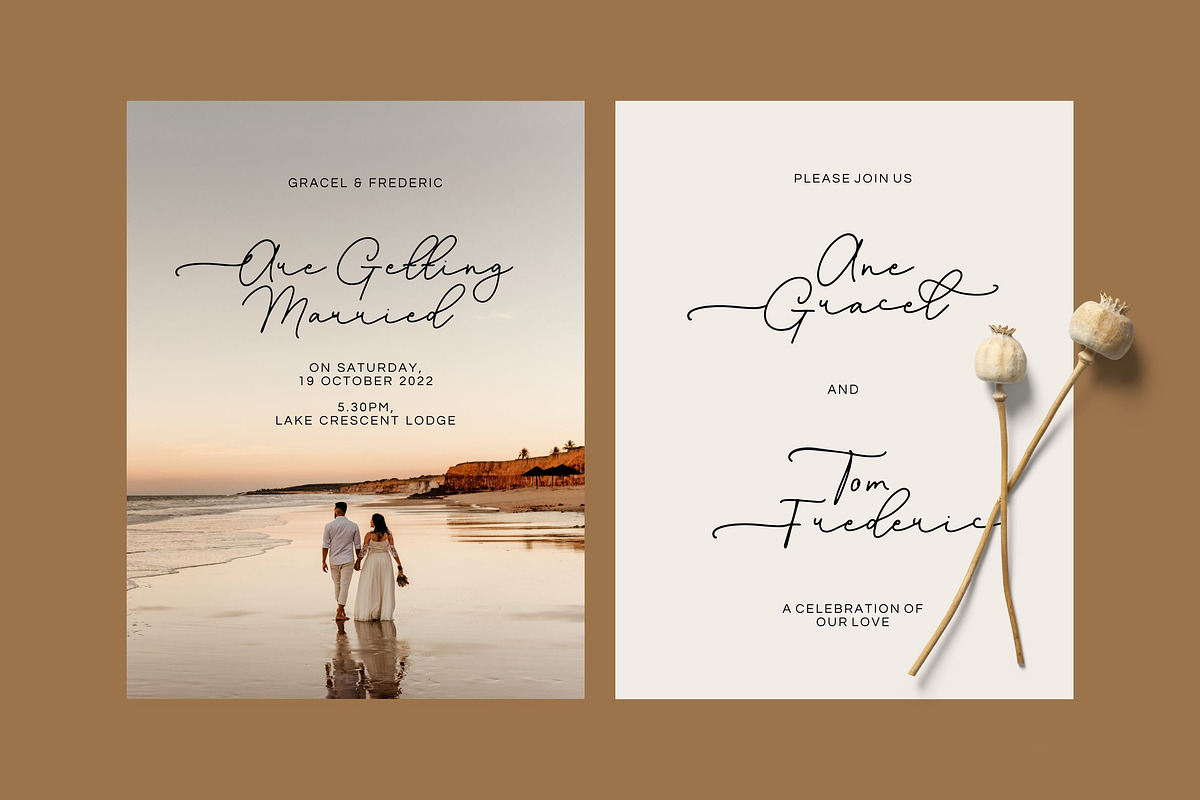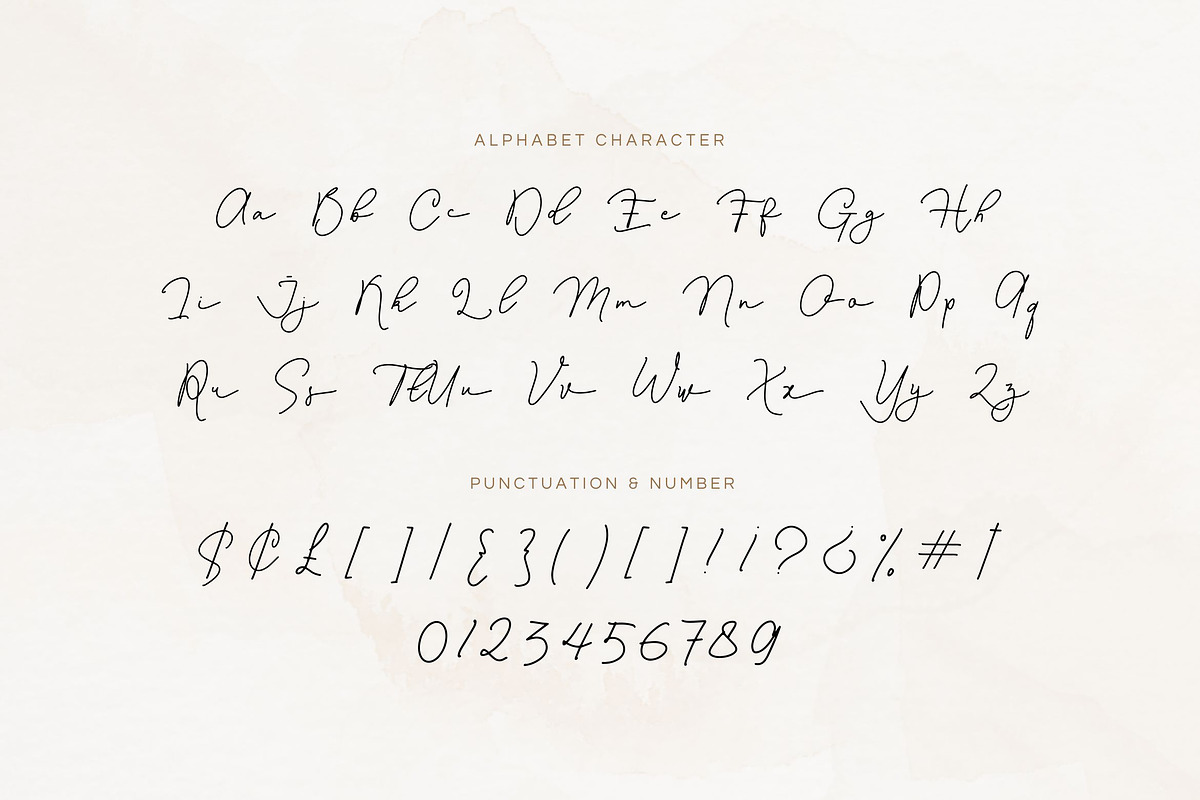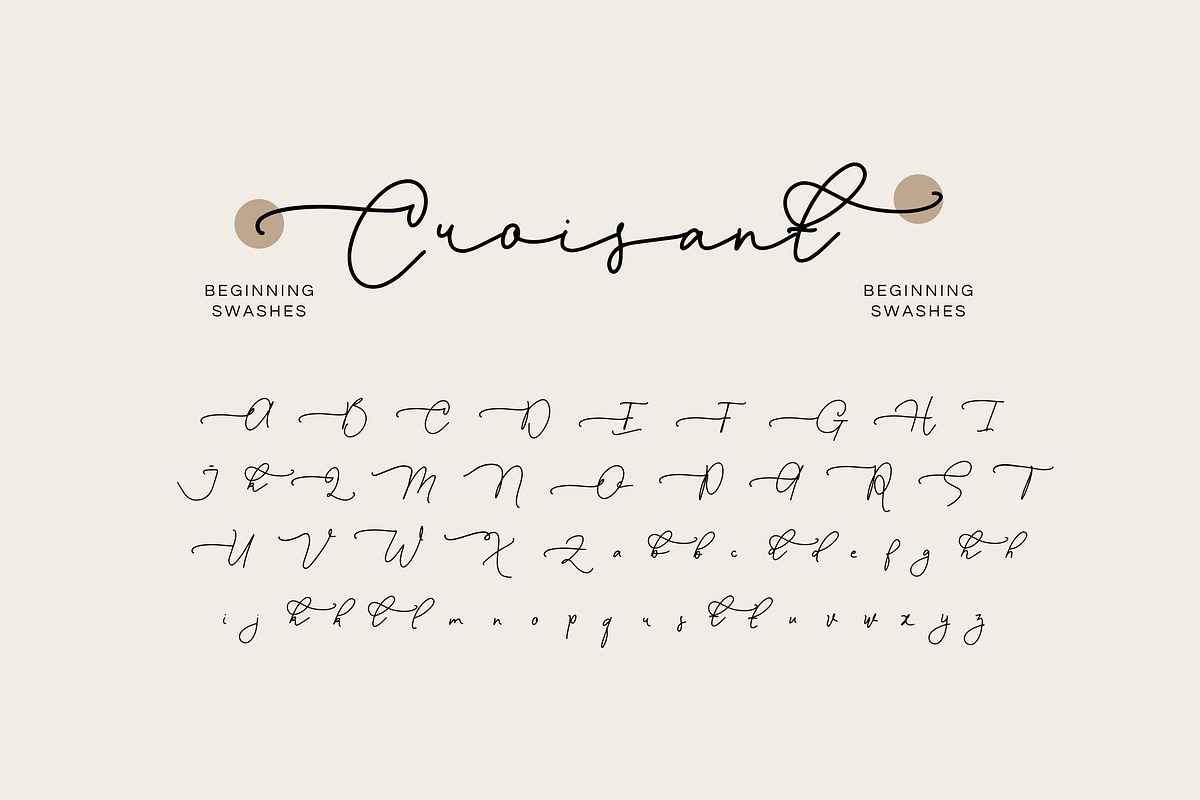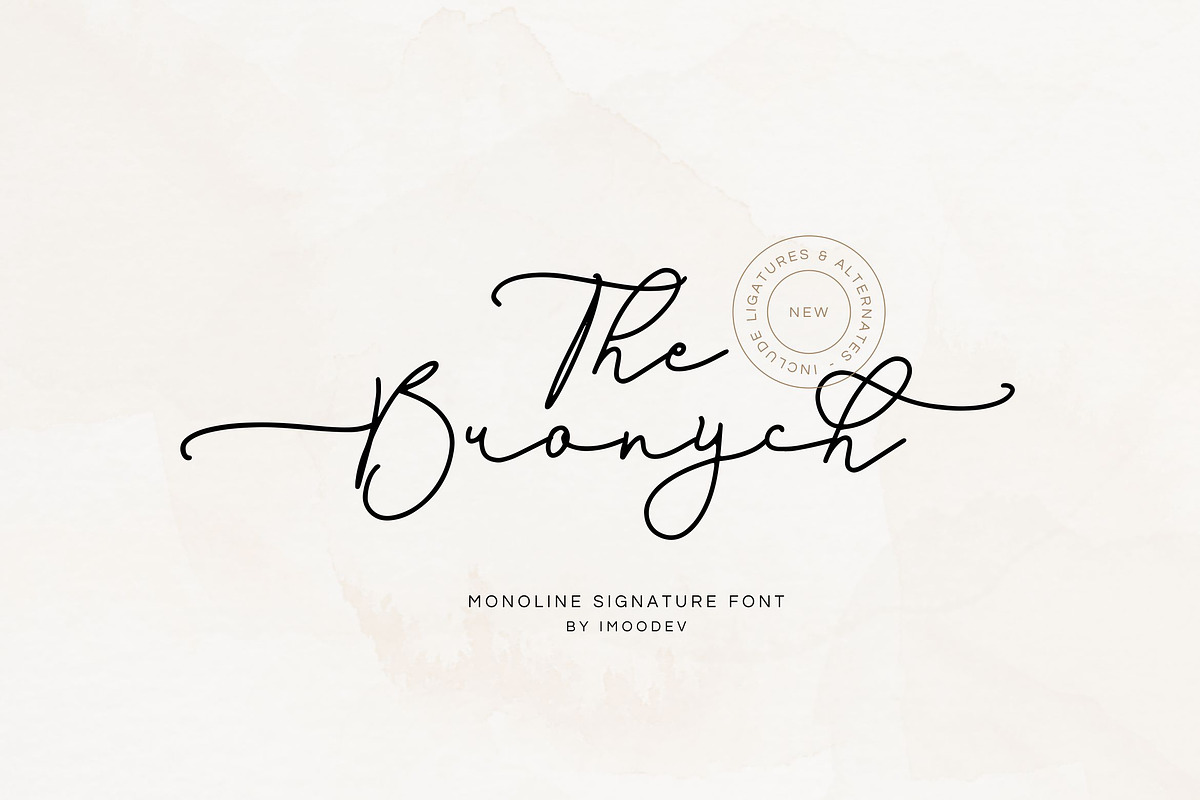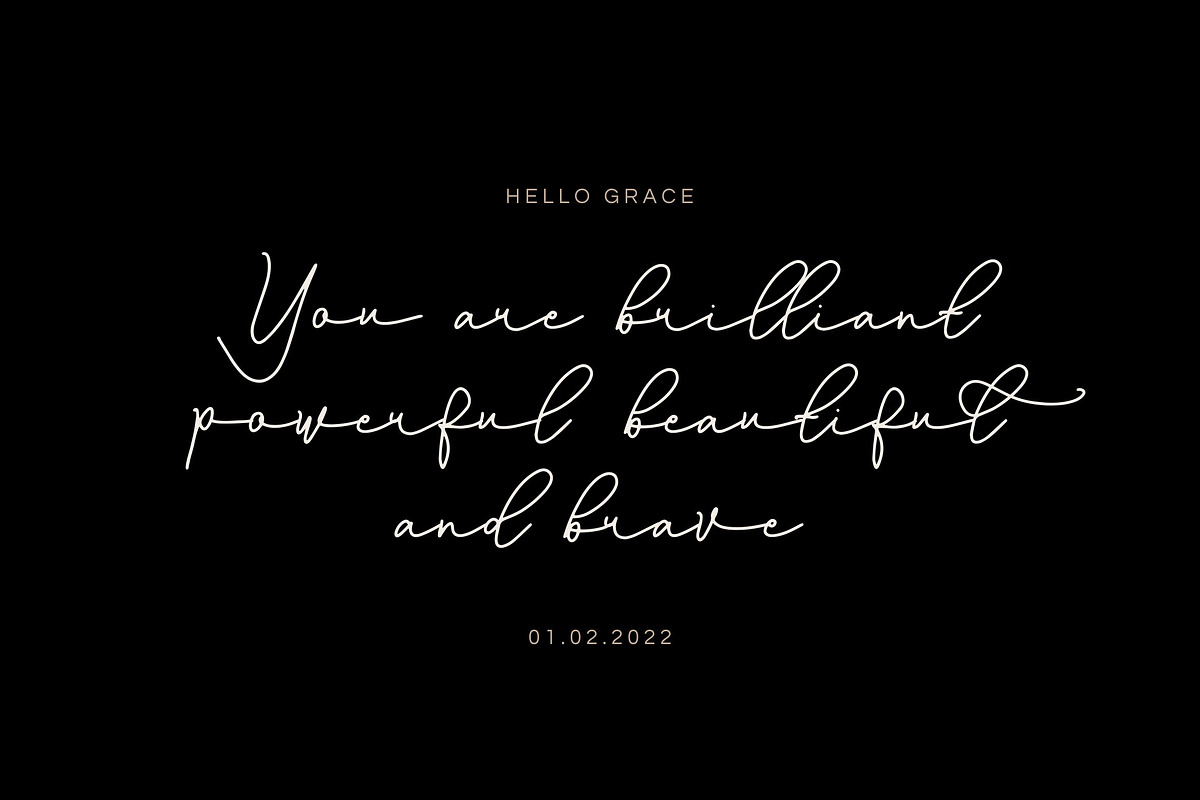
The Bronych - Handwritten Script
Introducing 'The Bronych' is a monoline signature font that emulates elegant, clean handwriting with dynamic and exaggerated loops. The strokes vary in thickness, which adds a natural, ink-flow texture to the lettering, enhancing its overall artistic and expressive quality.
This type of font is often used for branding, wedding invitations, handwritten quotes, signature logos, watermarks, feminine branding, romantic and high-end event stationery. The monoline nature of the strokes makes it very modern and versatile for various design needs.